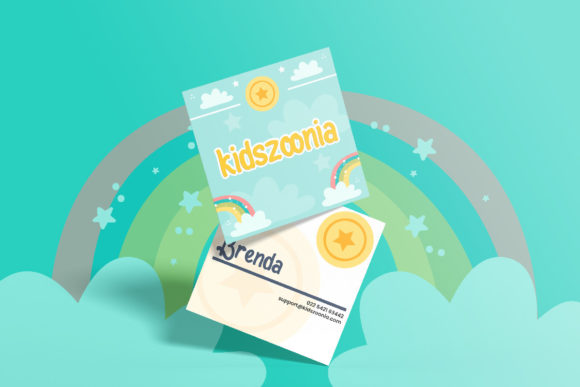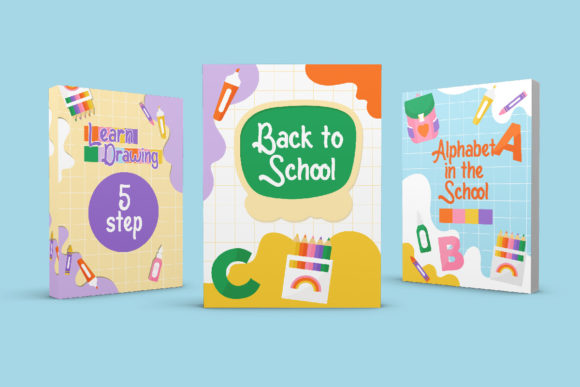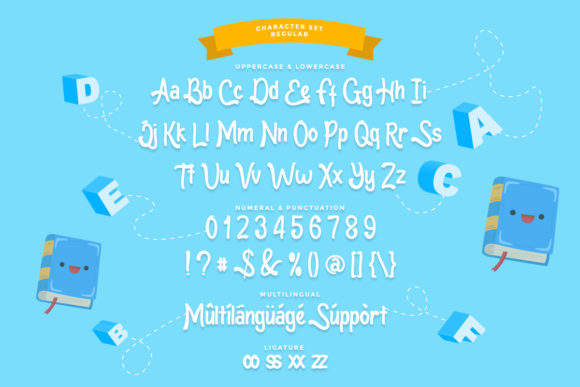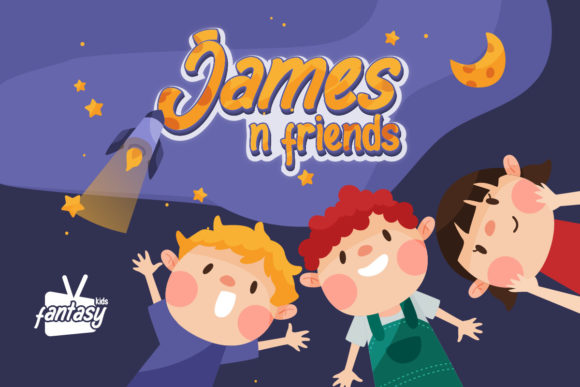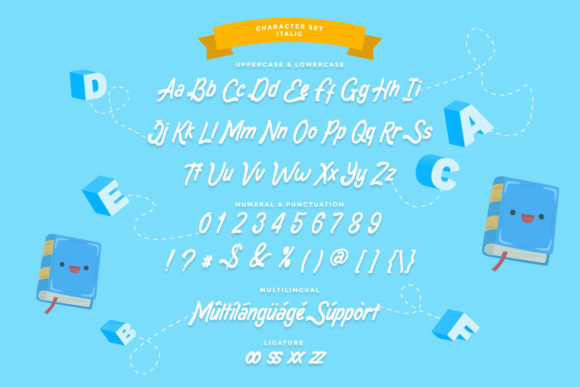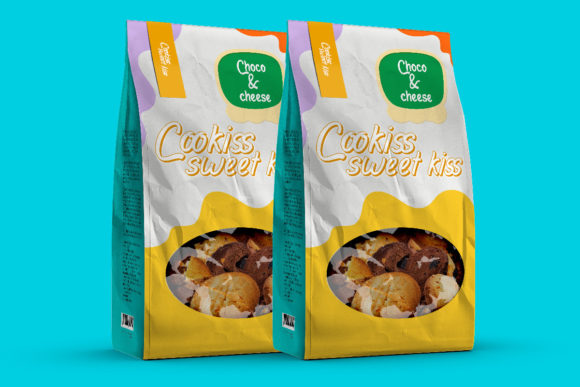
Introducing Daybook Font: The Perfect Choice for Kids’ Designs
Are you a designer or crafter looking for a font that can add a touch of fun and playfulness to your kids’ designs? Look no further than Daybook Font! This fancy kids’ display font features a comic handwriting style that’s sure to delight children and parents alike.
What Makes Daybook Font So Special?
Daybook Font is a unique and eye-catching font that’s specifically designed for use in kids’ designs. Its comic handwriting style gives it a friendly and approachable feel that’s perfect for children’s books, clothing, birthday party invitations, and more.
With Daybook Font, you can add a personal touch to your designs that will make them stand out from the crowd. Whether you’re creating a logo, branding materials, or packaging for a kids’ product, this font is sure to make a lasting impression.
Uses for Daybook Font
Daybook Font is incredibly versatile and can be used in a wide range of applications, including:
• Children’s books: Add a touch of whimsy and fun to your storybook designs with Daybook Font.
• Clothing: Create adorable and eye-catching designs for kids’ clothing, such as t-shirts, hoodies, and hats.
• Birthday party invitations: Make your party invites stand out with a fun and playful font that’s sure to get kids excited.
• Logo branding: Use Daybook Font to create a unique and memorable logo for your kids’ brand or product.
• School projects: Add a touch of personality to school projects, such as posters, flyers, and presentations.
• Product packaging: Make your kids’ product packaging stand out with a fun and playful font that’s sure to delight parents and kids alike.
• Houseware: Create adorable and functional designs for kids’ houseware, such as mugs, water bottles, and tote bags.
Why Choose Daybook Font?
There are many fonts to choose from, but Daybook Font stands out from the rest for several reasons:
• Unique style: Daybook Font features a unique comic handwriting style that’s sure to grab attention.
• Easy to read: Despite its playful style, Daybook Font is easy to read and understand, making it perfect for use in a wide range of applications.
• Versatile: Daybook Font can be used in a wide range of applications, from kids’ designs to adult projects.
• High-quality: Daybook Font is a high-quality font that’s designed to produce crisp and clear results, even at small sizes.
Tips for Using Daybook Font
Here are a few tips for getting the most out of Daybook Font:
• Use it sparingly: Daybook Font is a bold and eye-catching font, so use it sparingly to avoid overwhelming your design.
• Pair it with other fonts: Daybook Font pairs well with other fonts, such as sans-serif fonts, to create a fun and playful contrast.
• Experiment with colors: Daybook Font looks great in a wide range of colors, so don’t be afraid to experiment and find the perfect hue for your design.
Daybook Font is a fantastic choice for designers and crafters looking to add a touch of fun and playfulness to their kids’ designs. With its unique comic handwriting style, versatility, and high-quality design, it’s the perfect font for a wide range of applications. So why not give Daybook Font a try and see the difference it can make in your designs?